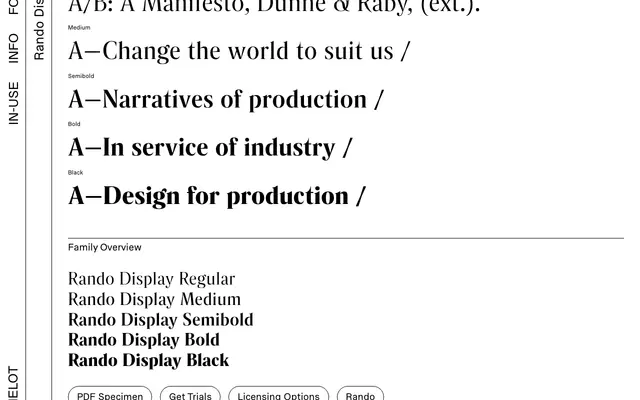
Rando Display
A display revival of German romanesque typefaces from the late 19th and early 20th centuries, drawing on models such as Anker Romanisch and Hamburger Römisch.
Designed by Maurice Göldner, Rando Display is one half of a family that also includes a text version, together spanning five weights from Regular to Black with corresponding italics. The reference points are German foundry romanesque types of the Wilhelmine period, a category where multiple foundries issued near-identical designs under competing names. OpenType features include alternate g and t forms, old-style figures, discretionary ligatures and contextual alternates, with character coverage across approximately 250 Latin-based languages.
Rando is explicitly described as a homage to German romanesque typefaces of the late 19th and early 20th centuries, a specific serif subgenre characterised by compact proportions and sturdy strokes distinct from classical old-style or transitional serifs.